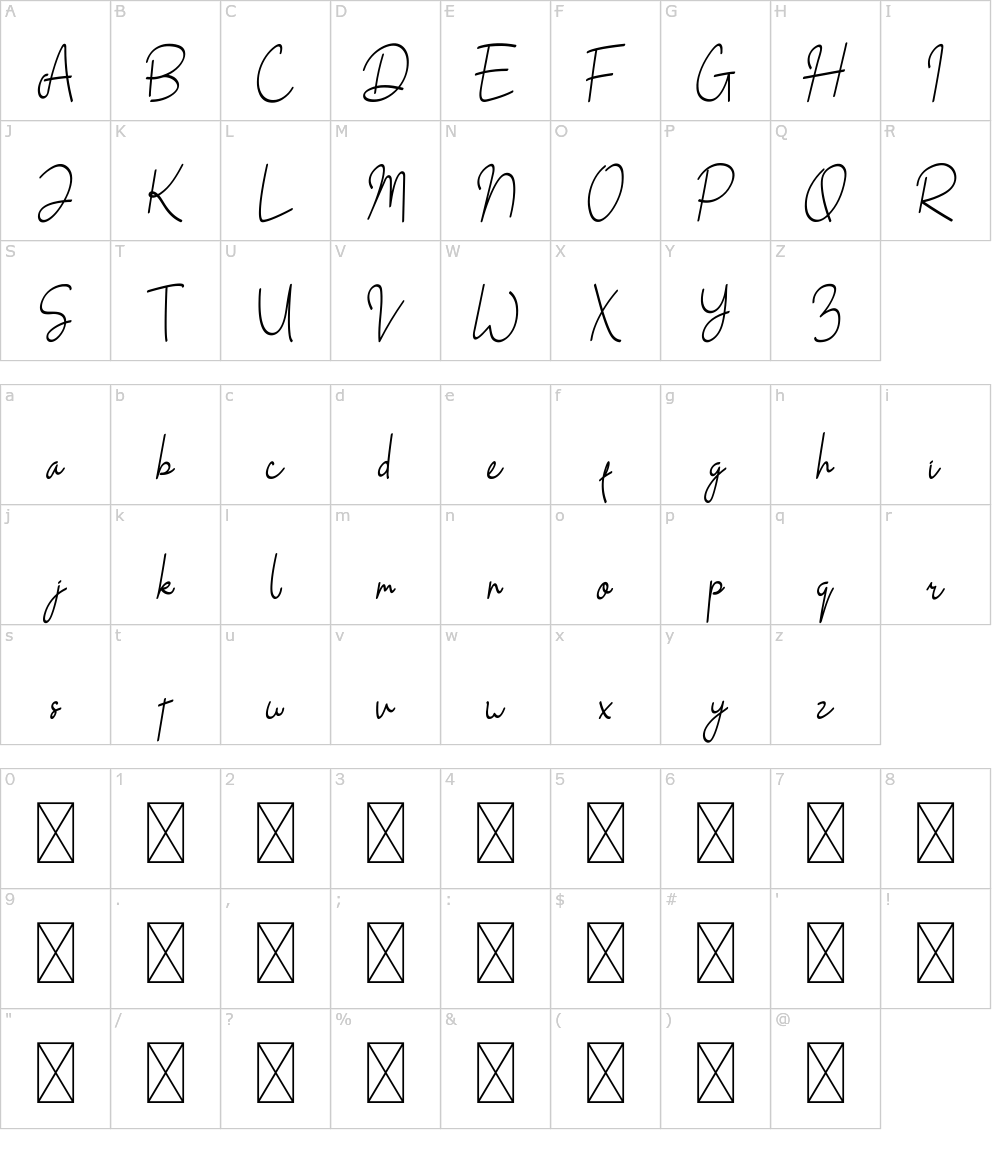
Black Pink Cursive Font
Letter J Is For Jelly Fish.
Blackpink Font Is A Logo Font That We Have Seen In The Blackpink Title.
The latest style letters are perfect for wall displays, wedding invitations, social media post logos, advertisements, product packaging, product designs, labels, photography, watermarks, invitations, stationery, and any. Drawings by gupusk 0 / 0 text effect or font effect 3d pink and black bold stock illustrations by devastudios 0 / 0 tracing english alphabet. It’s a south korean girl group formed by yg entertainment for the first time during august 2016.